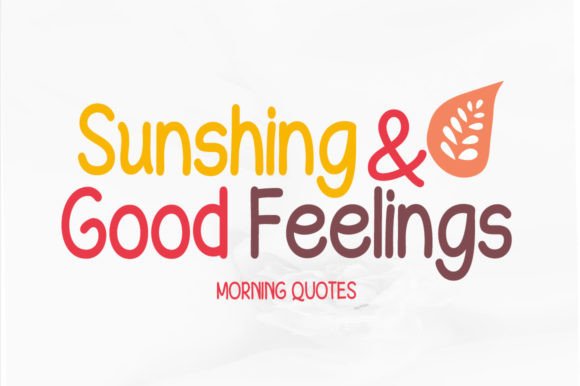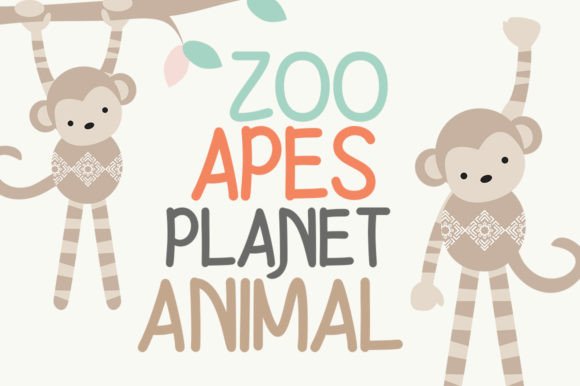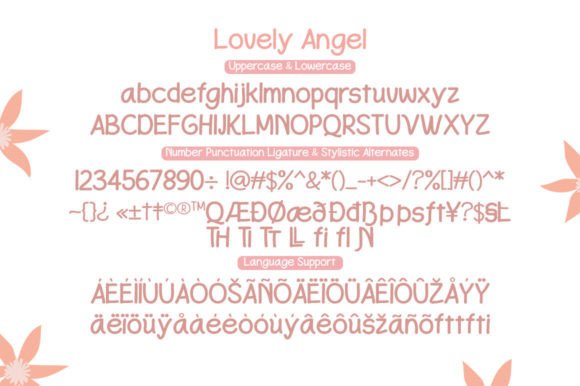
Kids Angel Font
Introducing the Kids Angel Font inspired by creative children’s writing. Combining hand-drawn style with a modern touch. Kids Angel comes with a ligature alternative that you can use to give your project more options.
Perfect for logos, notes, posters, t-shirts, stickers, posters, mugs, labels, etc.